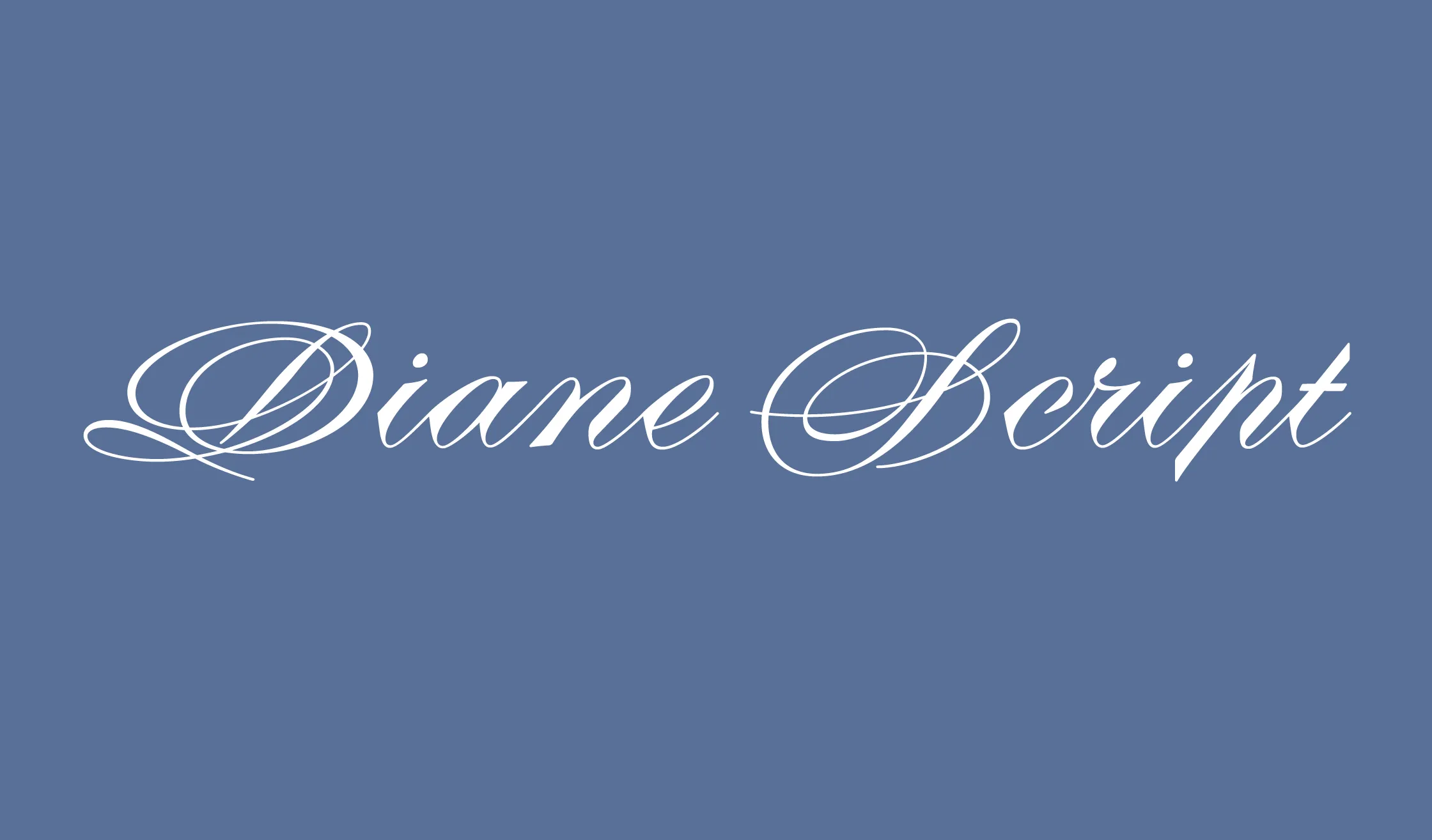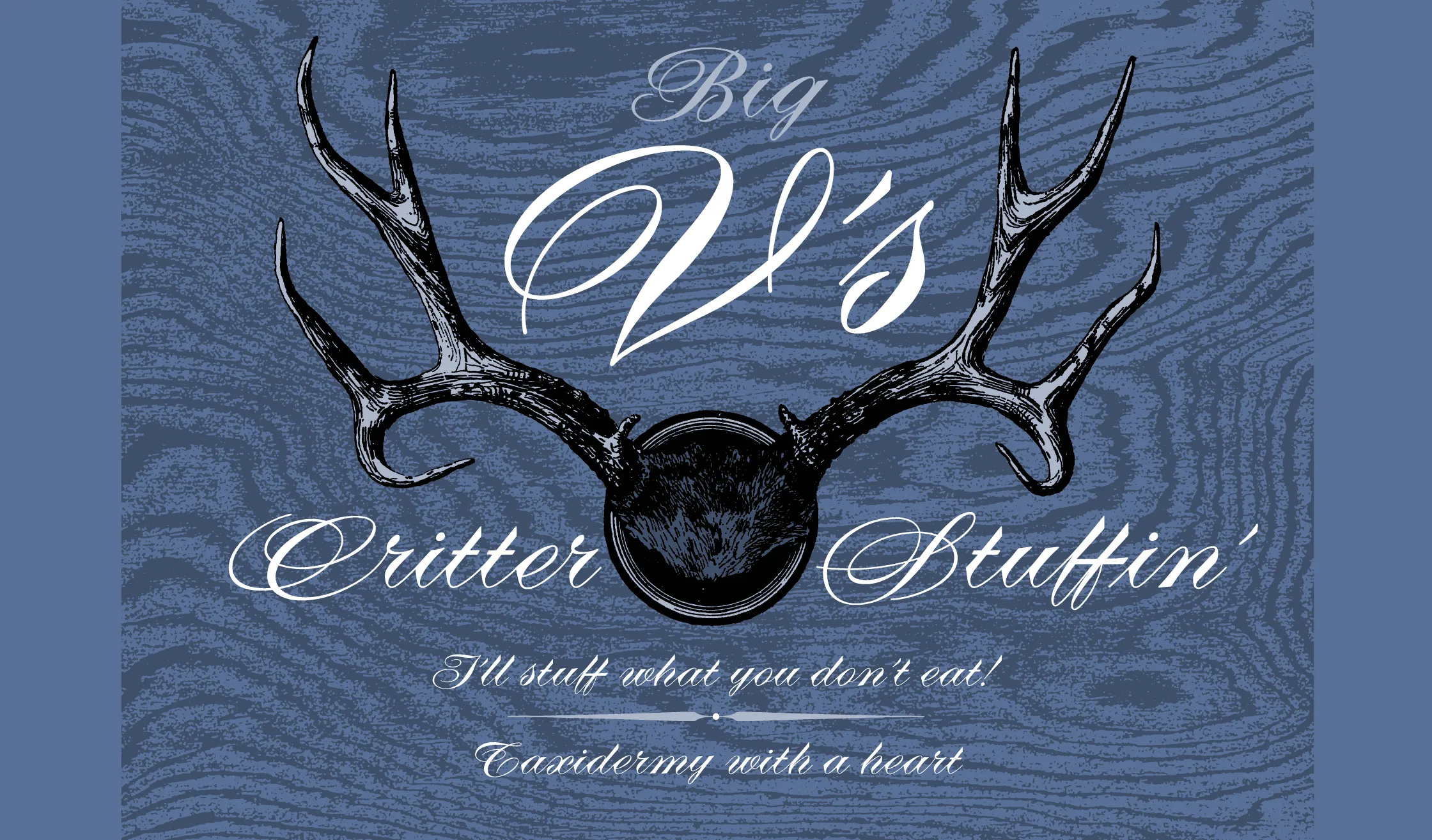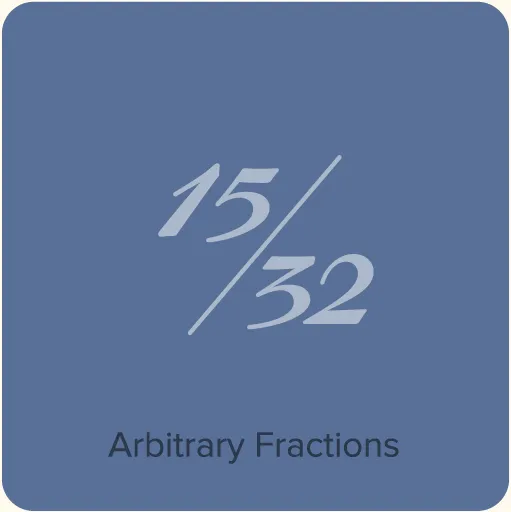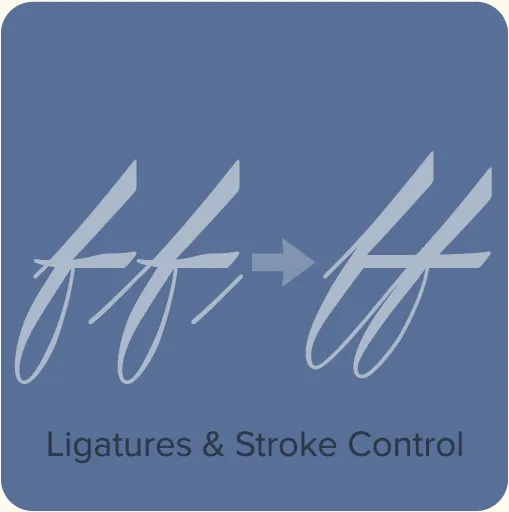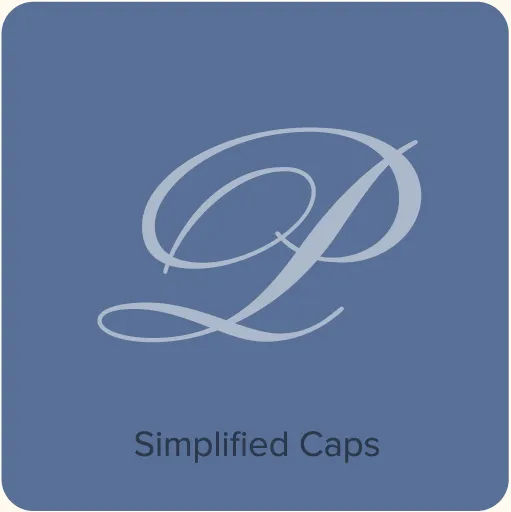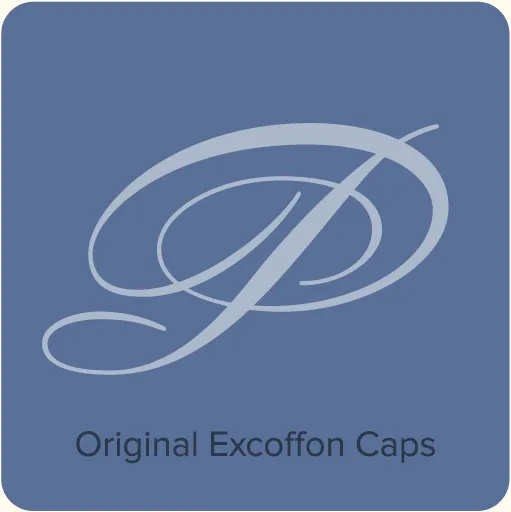
Diane Script & Diane Script Première (2008, for FontHaus) are a revival of Diane, designed by Roger Excoffon in 1956. His initial version featured elaborate, swirly caps. A second, with simplified caps, was released later. Both versions are preserved in my revival, with Diane Script Première featuring the original caps. I added many characters not present in the original, including an ampersand, which was curiously missing. I designed two, one simplified and one fancy. Both are included in Diane Script Première.